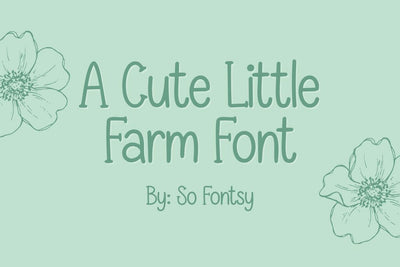
So Fontsy Farmer Font | A Cute Little Farmhouse Typeface
Bring a little country charm to your craft room. This hand-lettered farm font has all the warmth of a weathered barn sign and pairs beautifully with sunflowers, gingham, and anything painted on reclaimed wood. Perfect for kitchen signs, farmhouse decor, market totes, mason jar labels, and SVG cut files. Includes uppercase, lowercase, numbers, and basic punctuation. Commercial use friendly.